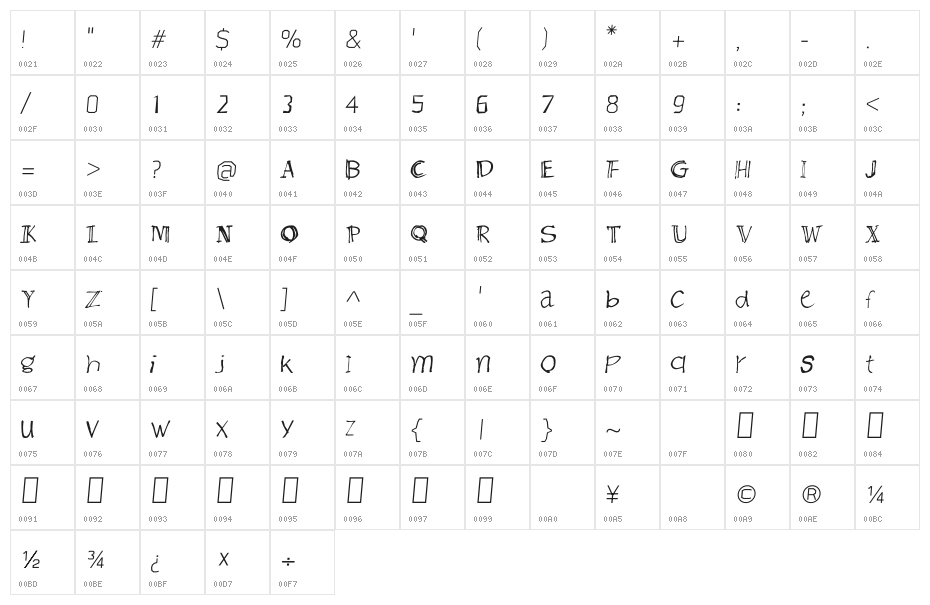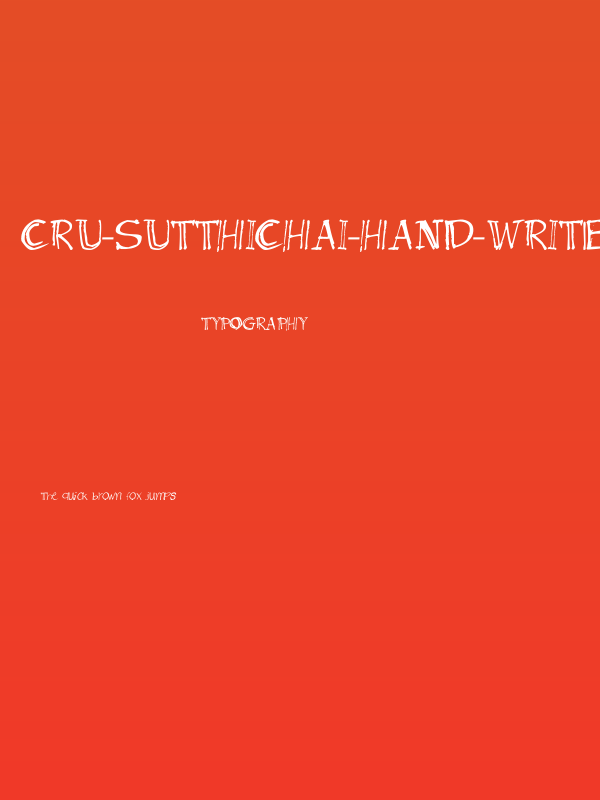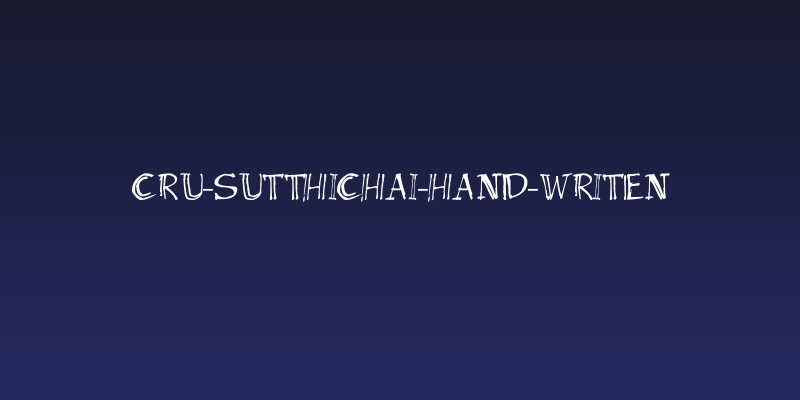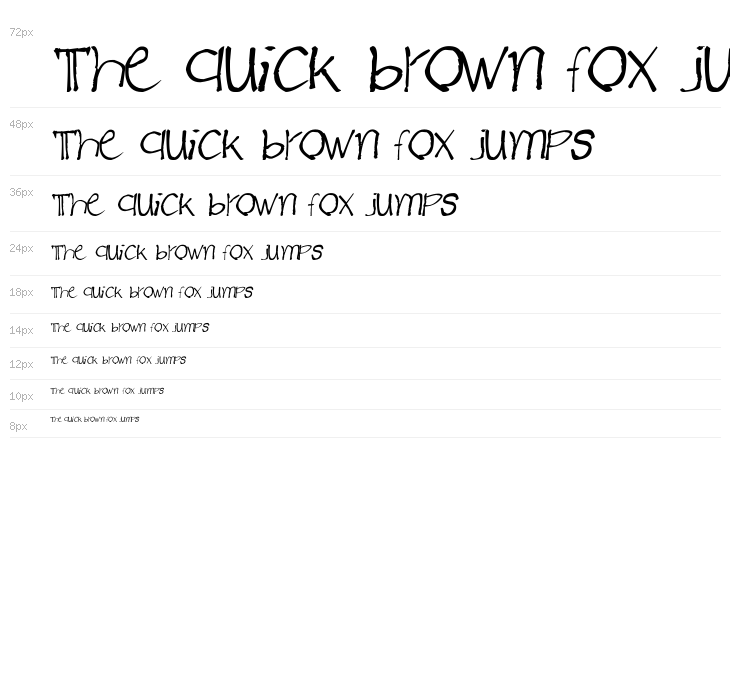
CRU-Sutthichai-hand-writen Font
CRU-Sutthichai-hand-writen Description
This font features a unique, hand-drawn style that mimics the appearance of brush strokes, giving it a dynamic and artistic feel. The uppercase and lowercase letters are characterized by irregular, jagged edges and varying line thickness, which adds to its organic and spontaneous look. The numerals and special characters maintain this aesthetic, ensuring a cohesive appearance across all glyphs. The font's playful and informal nature makes it ideal for creative projects that require a personal touch. It stands out with its expressive and bold design, making it suitable for eye-catching headlines and artistic displays.
| Use Case | Headlines, Logos, Artistic Displays |
| Proposed Projects | Ideal for artistic posters, creative branding, and unique invitations. |